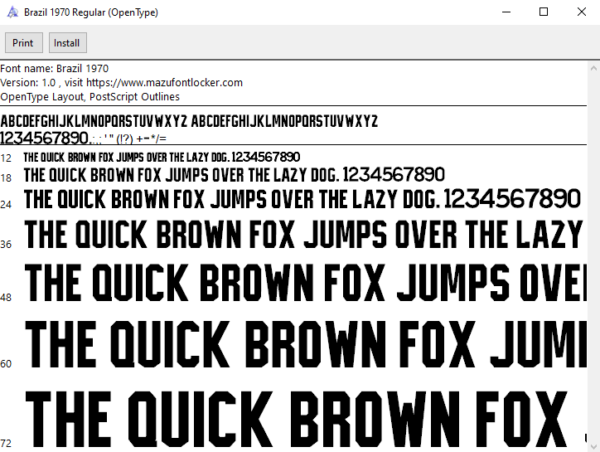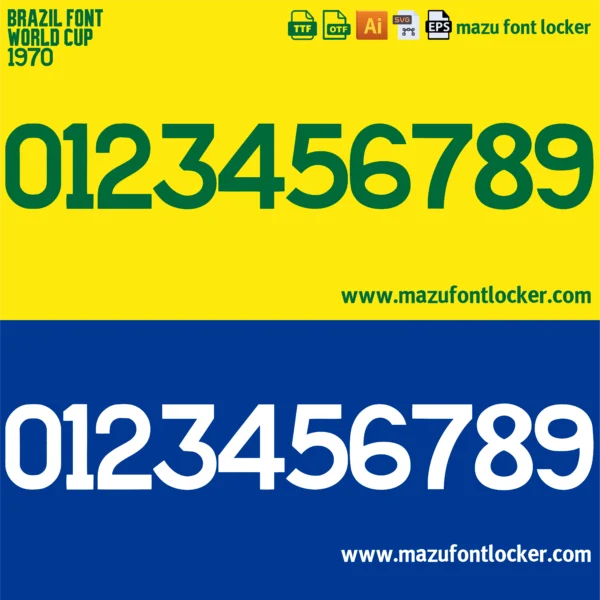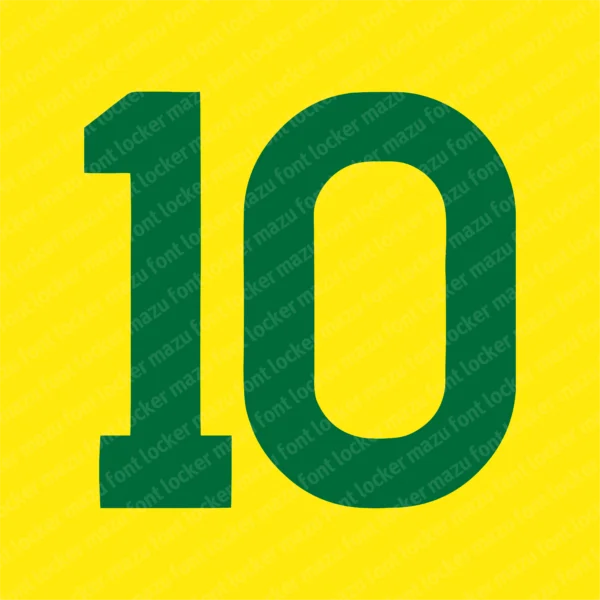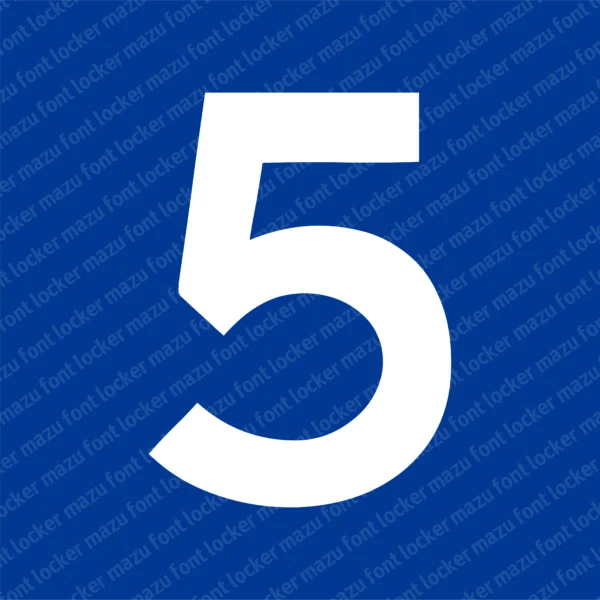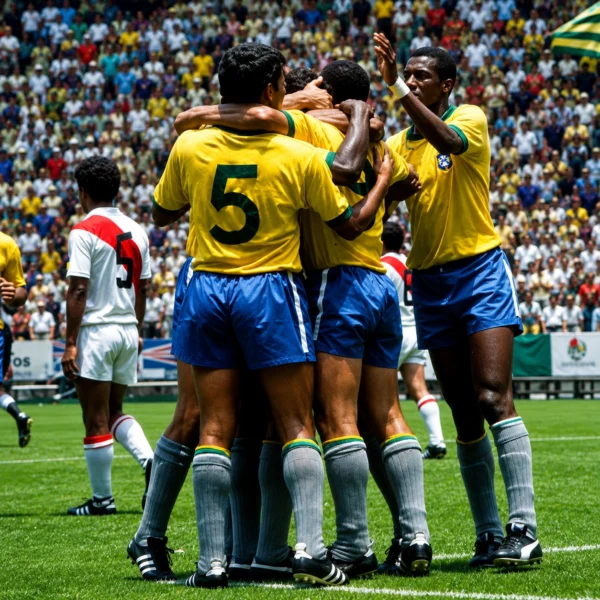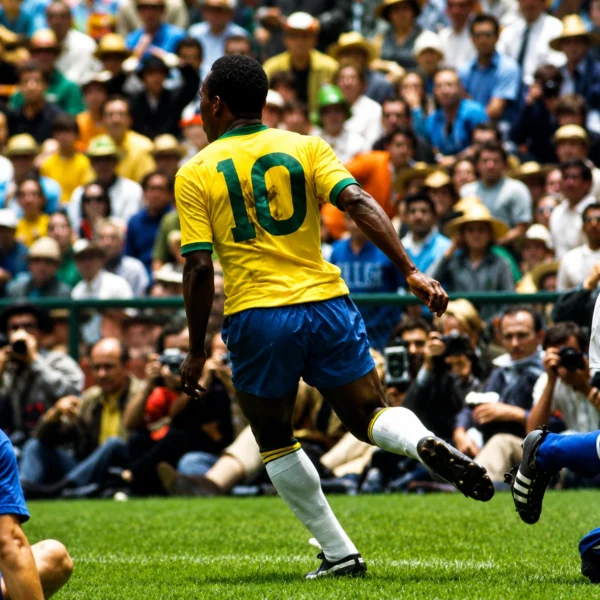
Brazil World Cup 1970 Font Vector – Legendary Golden Samba Masterpiece
Brazil World Cup 1970 Font – Authentic Canarinho Typeface
The Brazil World Cup 1970 Font is a premium typeface that accurately recreates the official match lettering worn by the Brazil national team during the legendary 1970 FIFA World Cup in Mexico. This high-quality font kit captures the bold, elegant, and timeless typography that represents the greatest team in World Cup history.
Designed for professional designers and passionate Brazil fans, the Brazil World Cup 1970 Font delivers perfect authenticity for creating retro jersey mockups, fan merchandise, matchday posters, social media graphics, and much more. It blends beautifully with the team’s iconic yellow-and-green colors from that unforgettable campaign.
Why Choose Brazil World Cup 1970 Font
This font stands out because of its sharp details and strong historical identity. Every letter and number is crafted to match the exact style used on the players’ shirts during the 1970 World Cup. Whether you are making realistic retro shirt templates or nostalgic football content, the Brazil World Cup 1970 Font gives your designs that authentic Canarinho look.
The letterforms in the Brazil World Cup 1970 Font are tall, bold, and highly readable. The strokes have a strong and controlled weight that looks powerful on the back of jerseys while maintaining excellent clarity and classic elegance.
The numerals use bold curves and firm edges, giving them a confident and premium appearance. This design ensures great legibility whether used in large print formats, digital mockups, or video content.
• Full uppercase A–Z and numbers 0–9 in authentic Brazil 1970 style
• Special Brazil CBF crest glyph for accurate shirt number detailing
• Create highly realistic Brazil 1970 World Cup jersey mockups with accurate lettering
• Design stunning retro World Cup posters, score graphics, and squad announcements
• Produce custom Canarinho merchandise with a legendary football aesthetic
Brazil in the 1970 World Cup